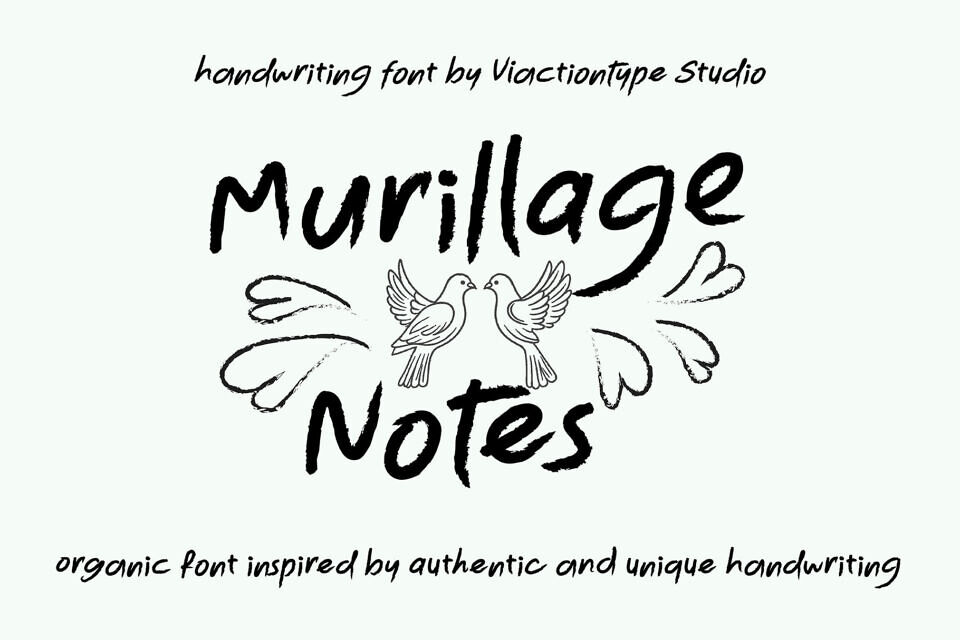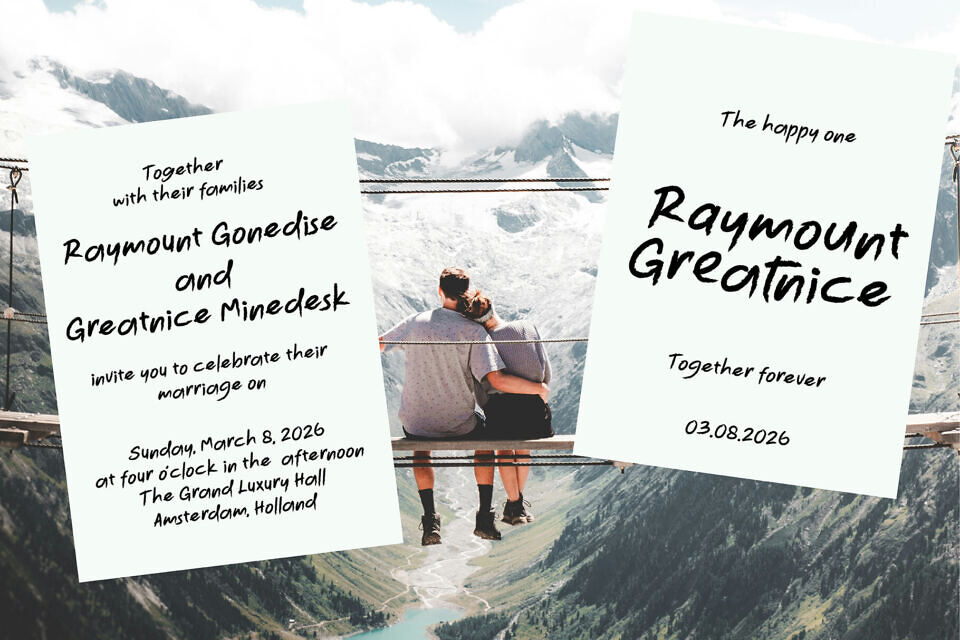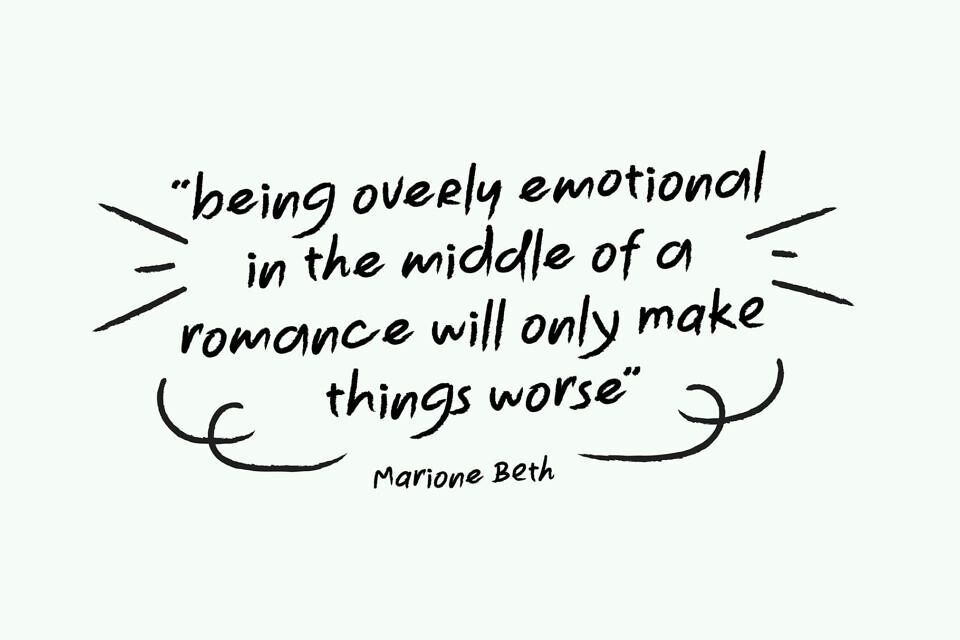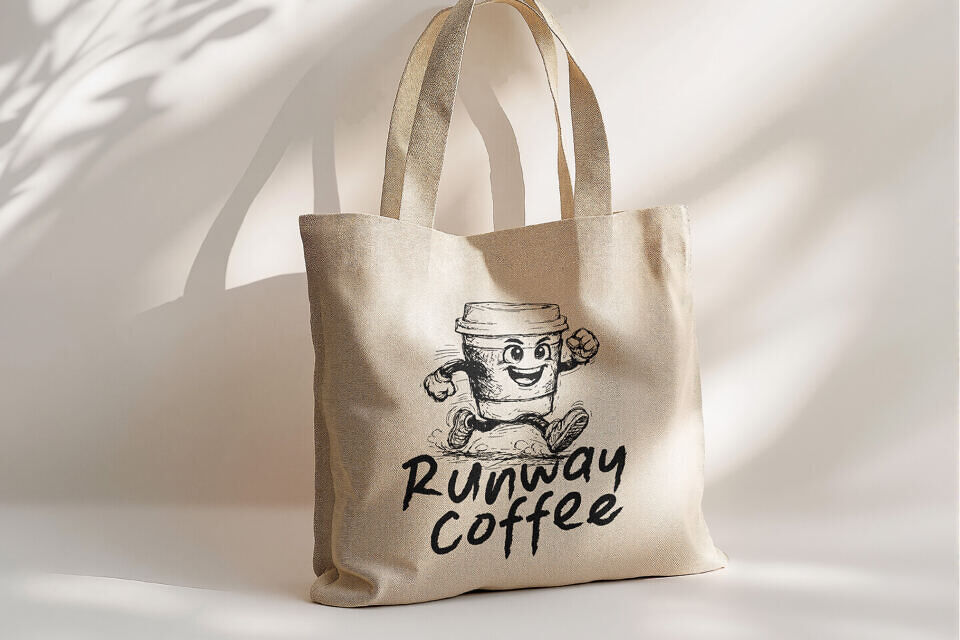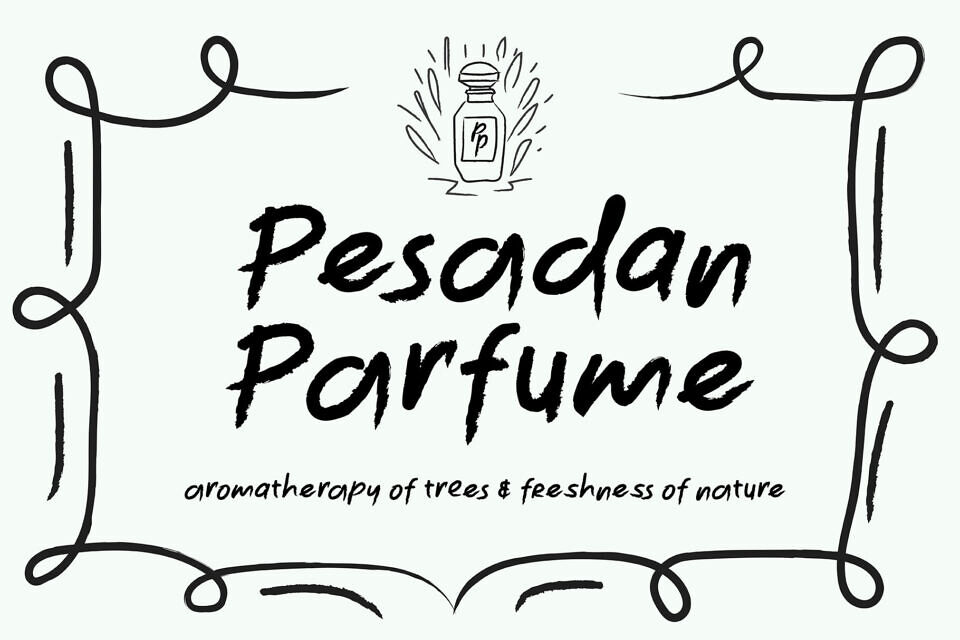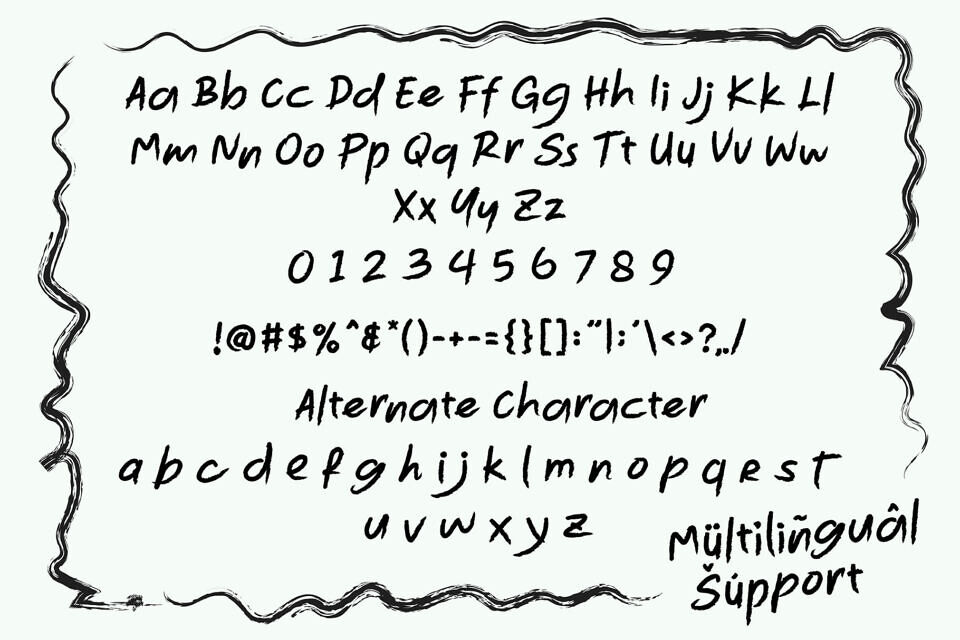
Murillage Notes is a graceful and expressive display brush typeface crafted to capture the beauty of dynamic, feminine handwritten strokes. Inspired by real ink brush handwriting, this font flows with smooth curves, natural rhythm, and soft movement—bringing a sense of elegance, warmth, and luxury to every composition.
Designed with lively brush pressure and authentic stroke texture, Murillage Notes delivers a realistic handcrafted feel. Each letterform shows visible brush detail and organic variation, making your typography look personal, artistic, and premium rather than mechanical.